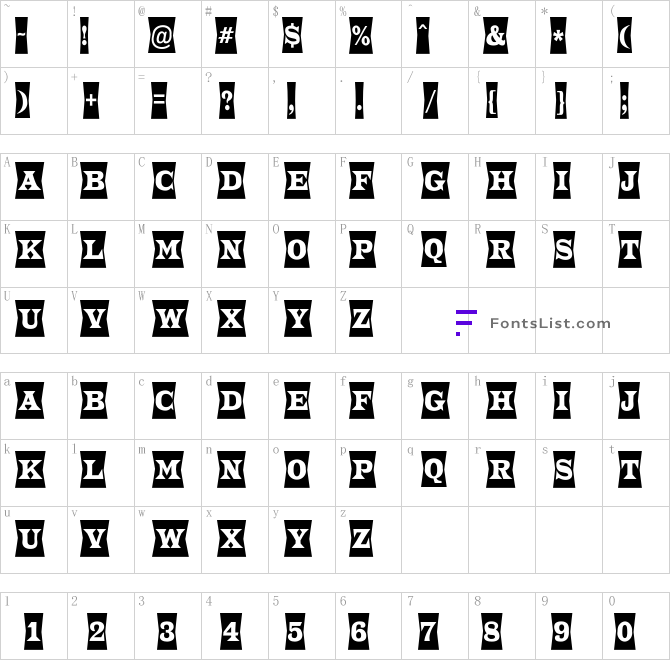
- Font Name:a_TrianglerCmFld
a_TrianglerCmFld.ttf is a very beautiful artistic font, a_TrianglerCmFld.ttf is widely used in the design and printing of various books and pictures,a_TrianglerCmFld.ttf has a strong visual impact,a_TrianglerCmFld.ttf is a commonly used font in newspapers, magazines and books, and is used in posters, e-commerce Poster design, store design, logo design, font design and other fields.a_TrianglerCmFld.